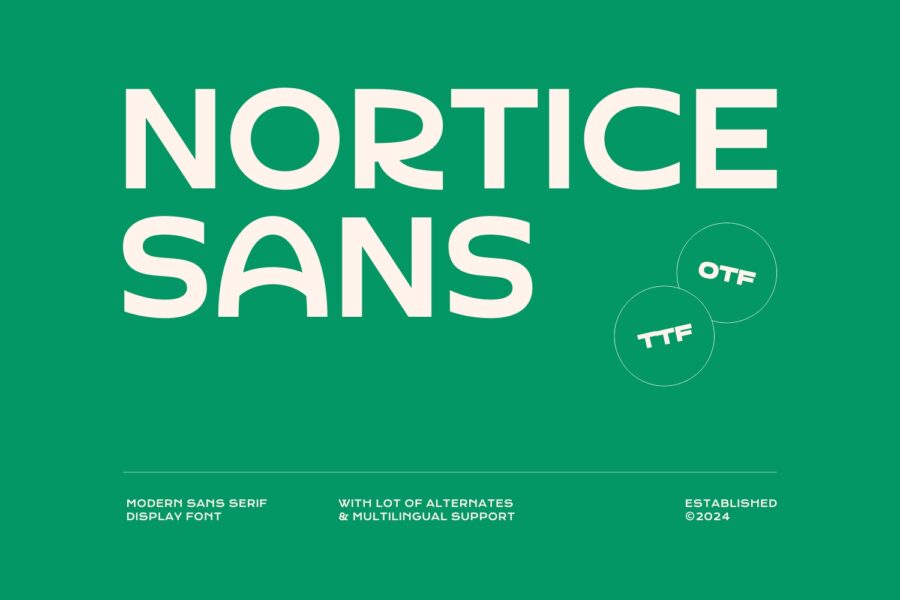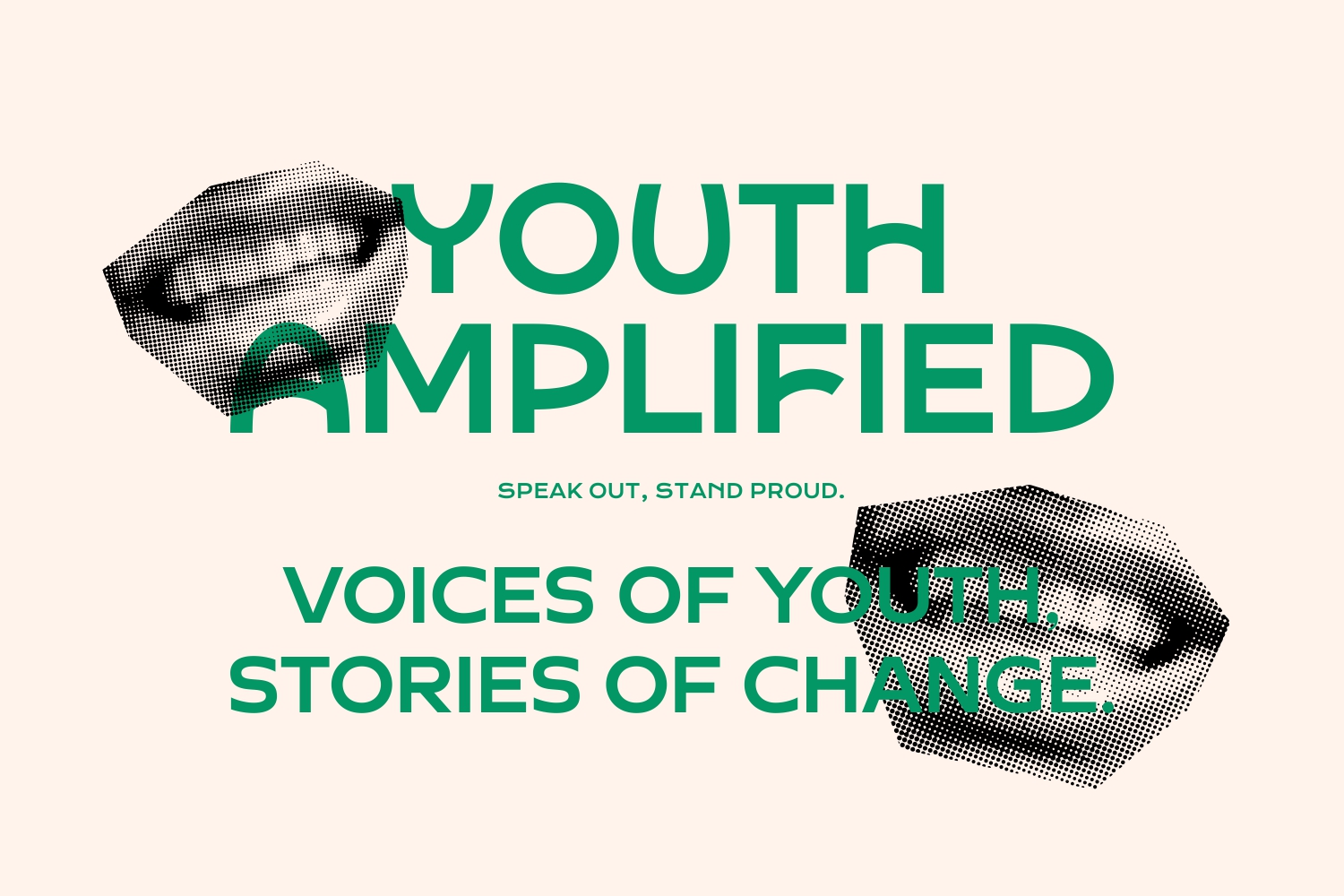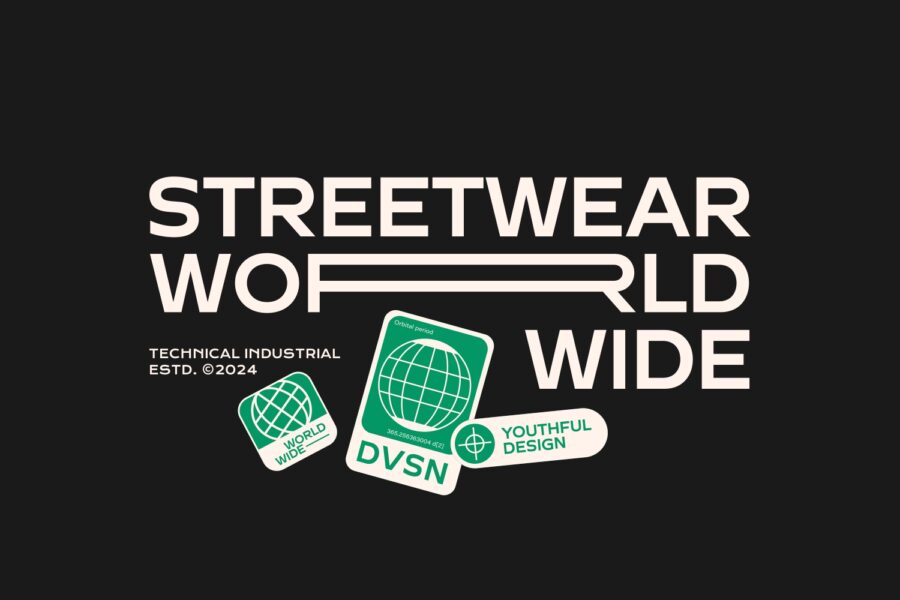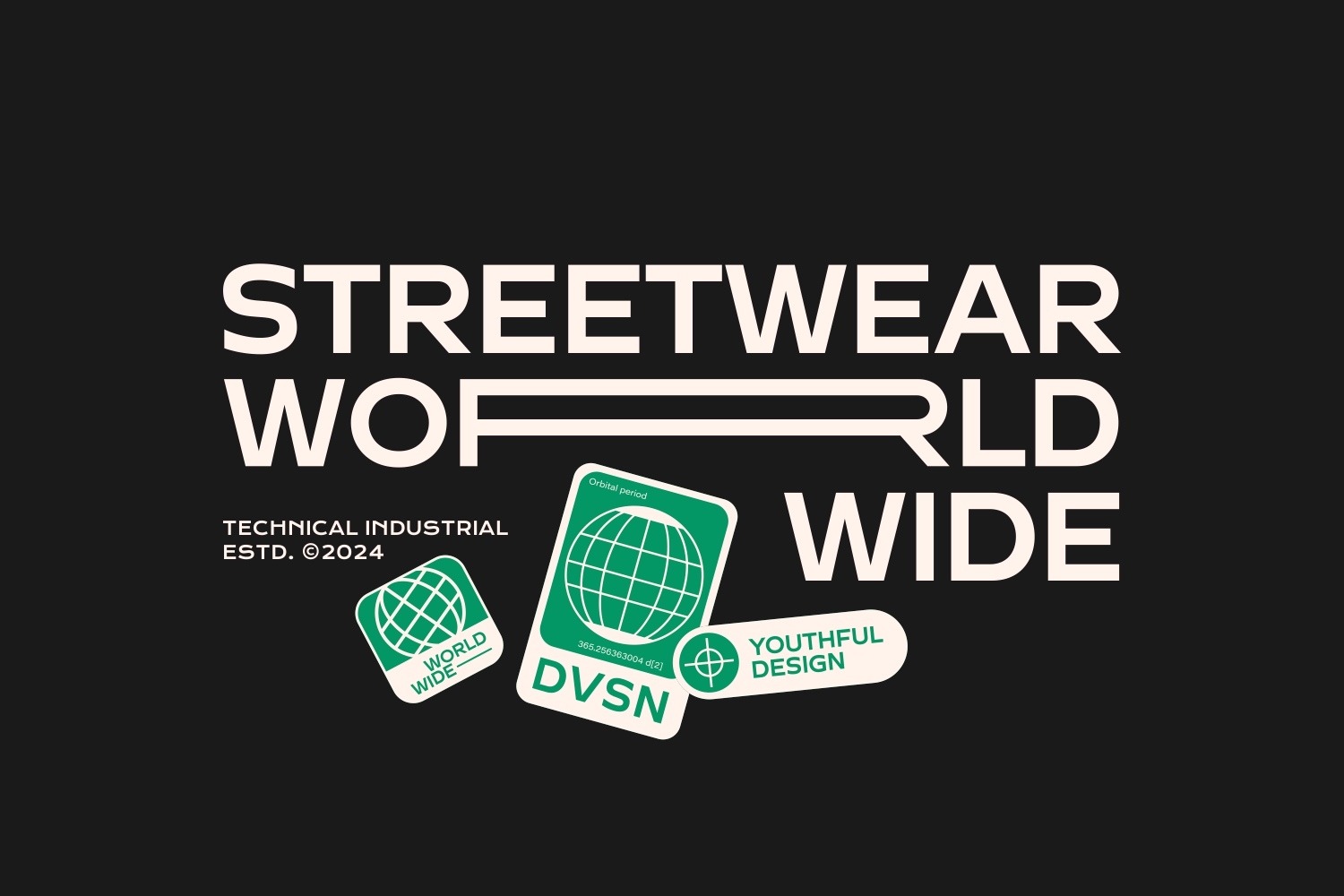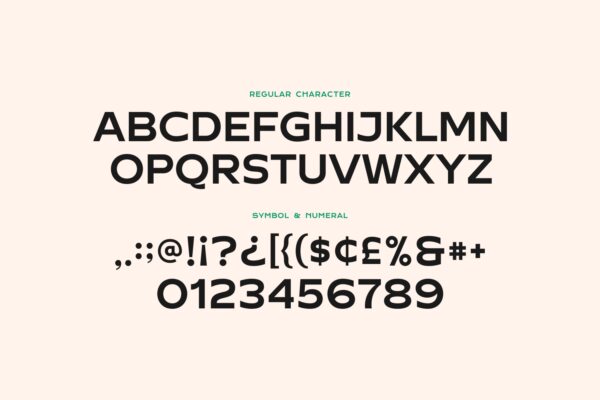
Nortice Sans is a bold and futuristic modern sans serif font designed for strong visual impact. With clean lines, geometric shapes, and uniquely crafted alternate characters, it brings a sleek and contemporary edge to any design. Nortice Sans is versatile and highly legible, making it perfect for branding, editorial layouts, poster headlines, and digital design projects.
This typeface includes uppercase letters, numerals, symbols, and a wide range of stylistic alternates to boost creative flexibility. Nortice Sans supports multiple languages and is ideal for those seeking a technical yet stylish typeface with personality. Whether you’re working on a streetwear brand, global campaign, or dynamic visual identity, Nortice Sans will give your work a confident, modern voice.
Nortice Sans